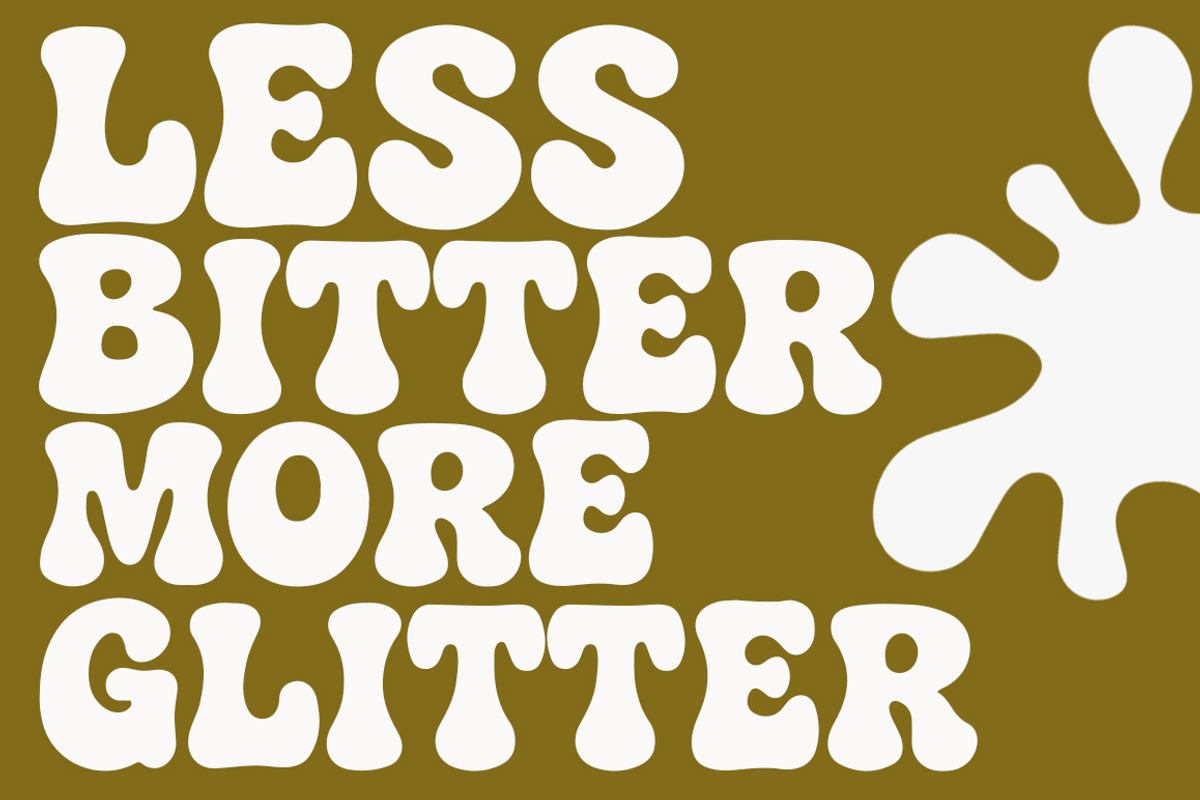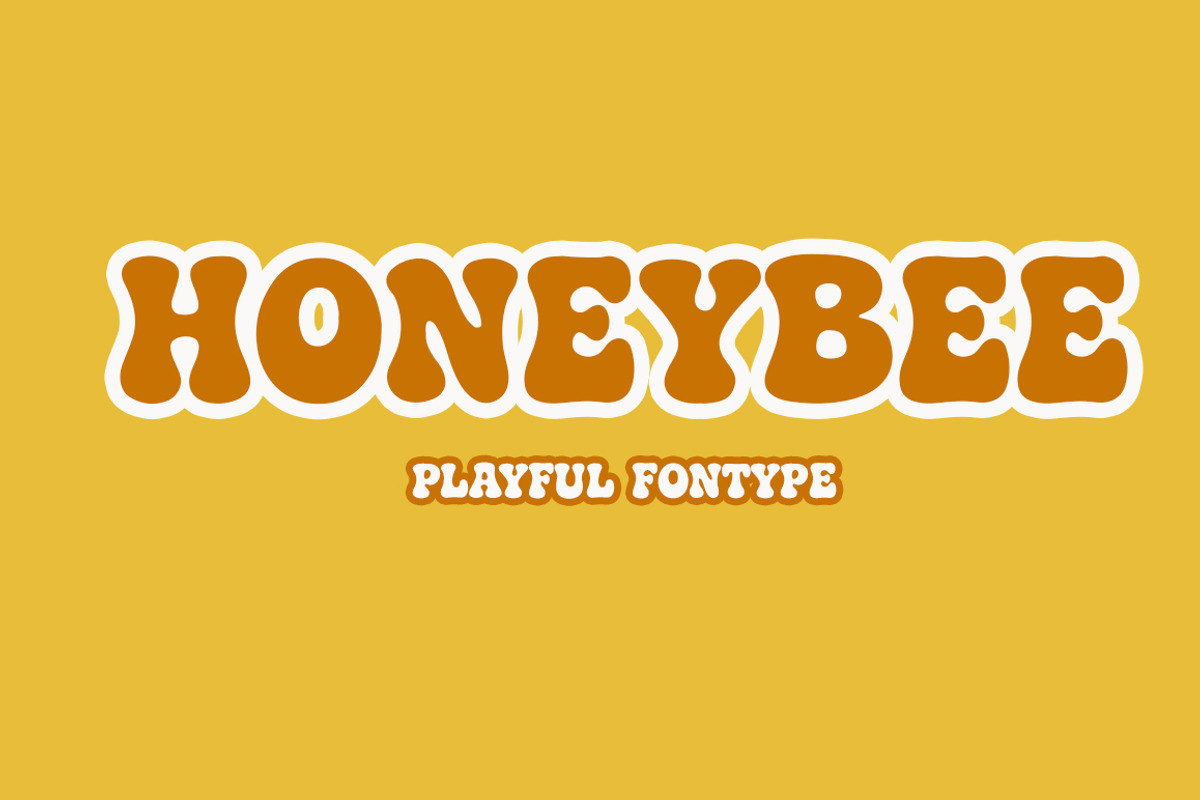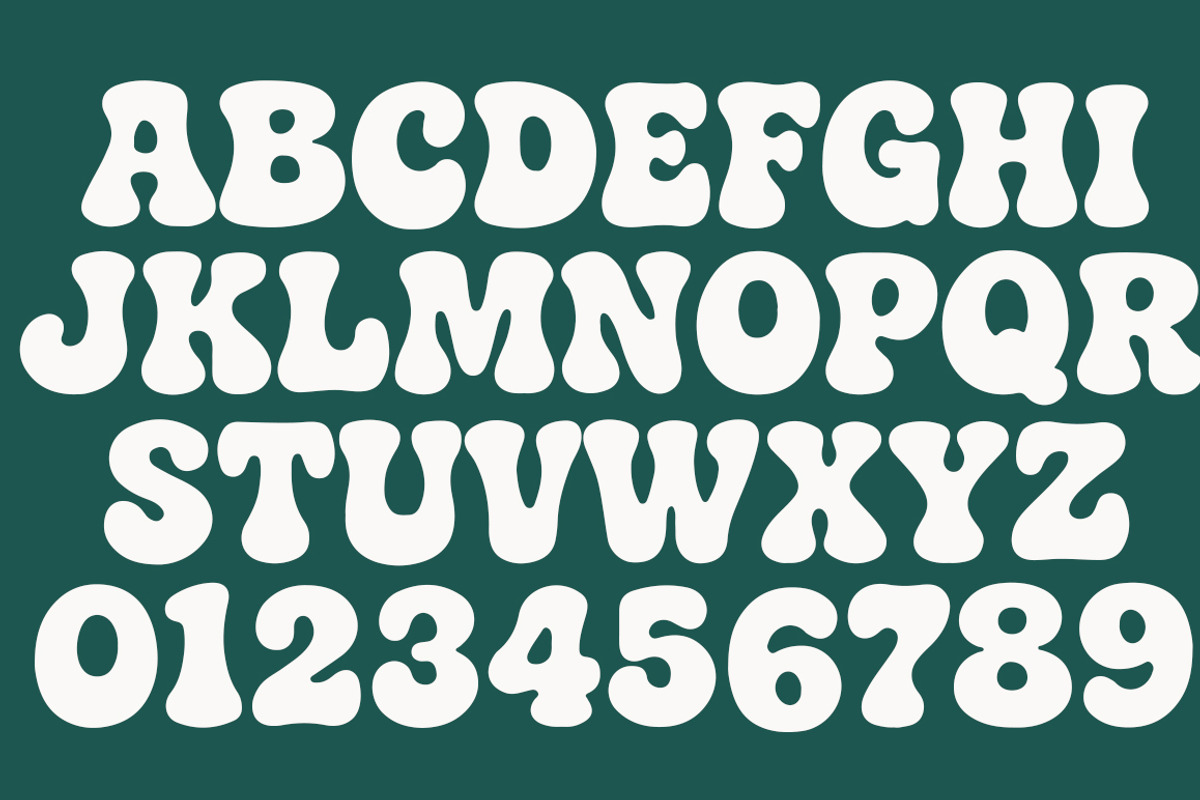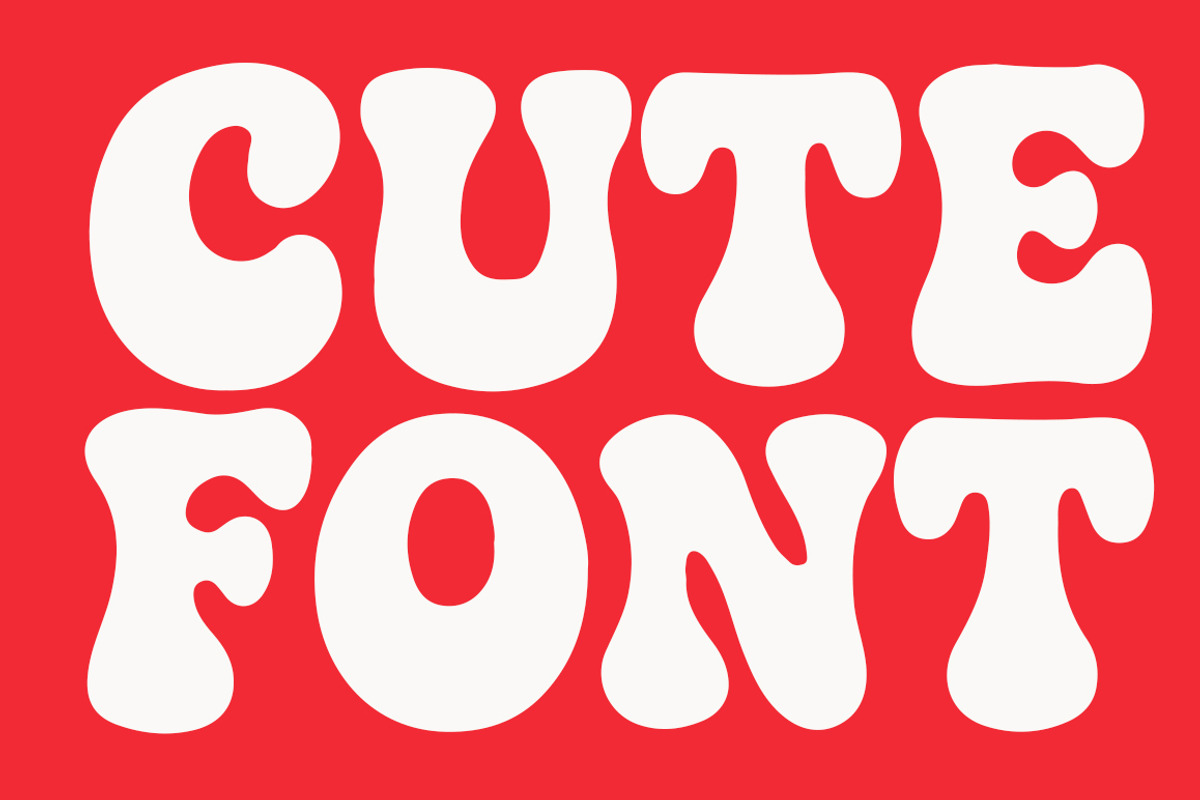
Honeybee
Bring sweetness and fun into your designs with Honeybee, a bold and playful display font inspired by the cheerful charm of honey drops and buzzing bees. With its rounded edges, bubbly shapes, and retro-friendly vibes, Honeybee is perfect for projects that need a warm, friendly, and eye-catching touch.
This font works beautifully for branding, packaging, posters, children’s books, social media, invitations, and playful merchandise. Its thick and fun letters ensure your message stands out while still keeping a lighthearted personality.